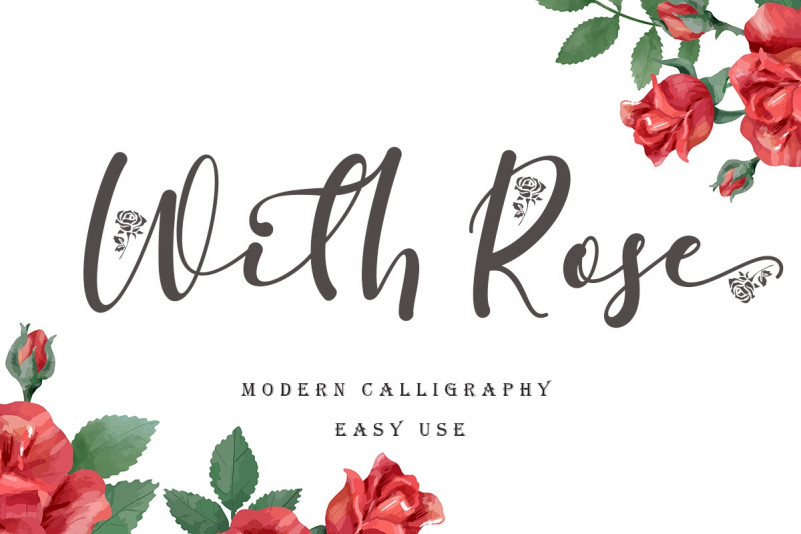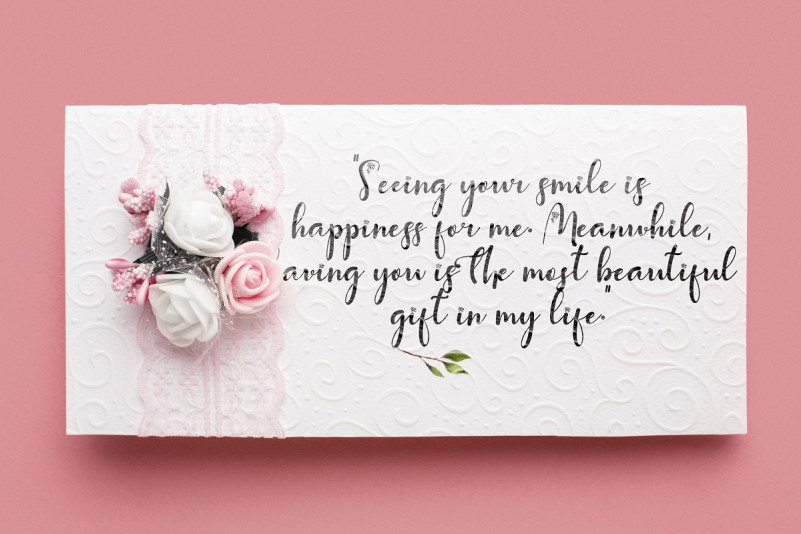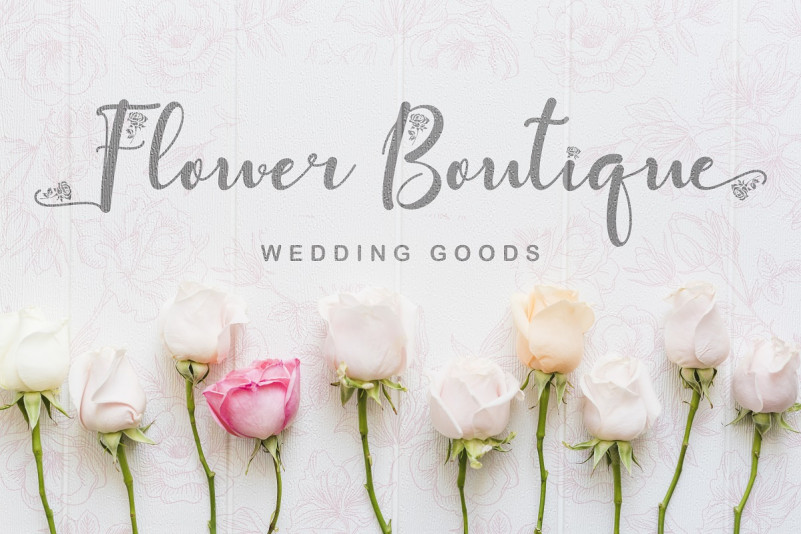
With Rose Calligraphy Font
With Rose Script Font is a unique, beautiful, and specially designed font that is very easy to use (easy to bring out lettering). Apart from its clear letters, this font is also perfect for all your work. This font is perfect for weddings, valentine’s, promotions, business, social media, logos, branding, banners, typography, prints, posters, and more.